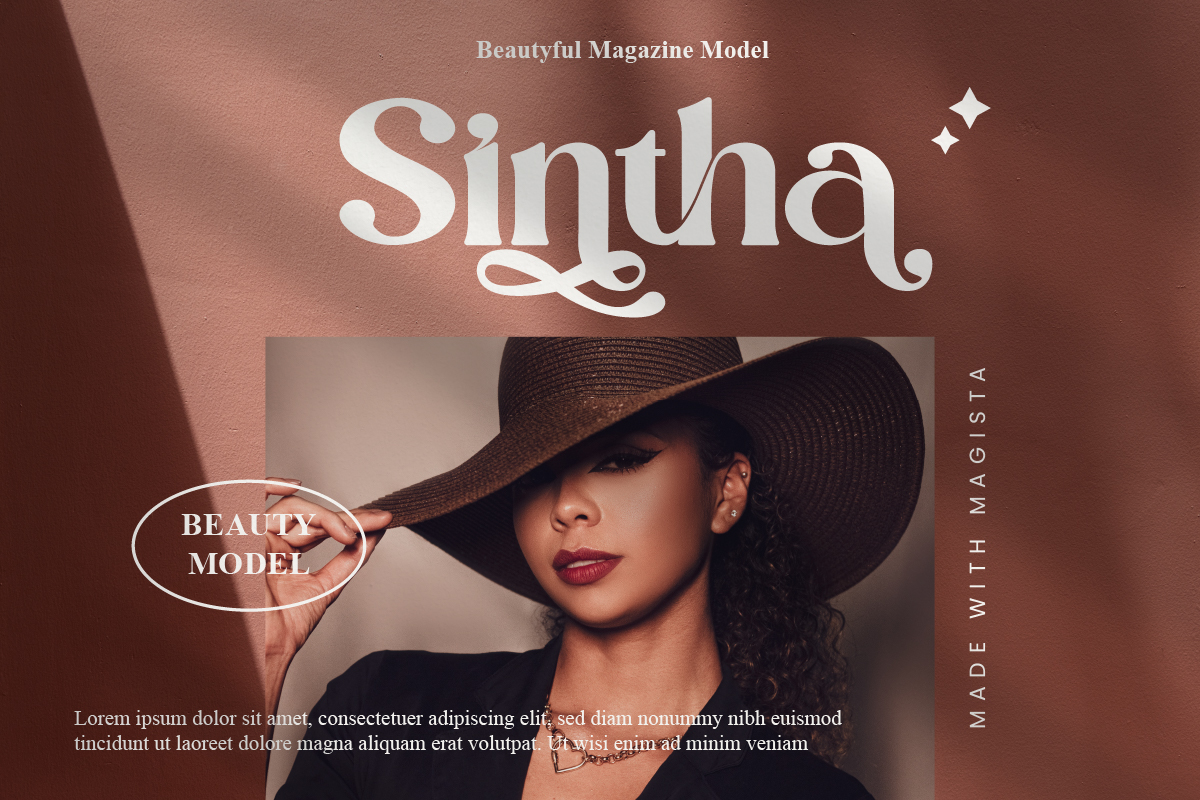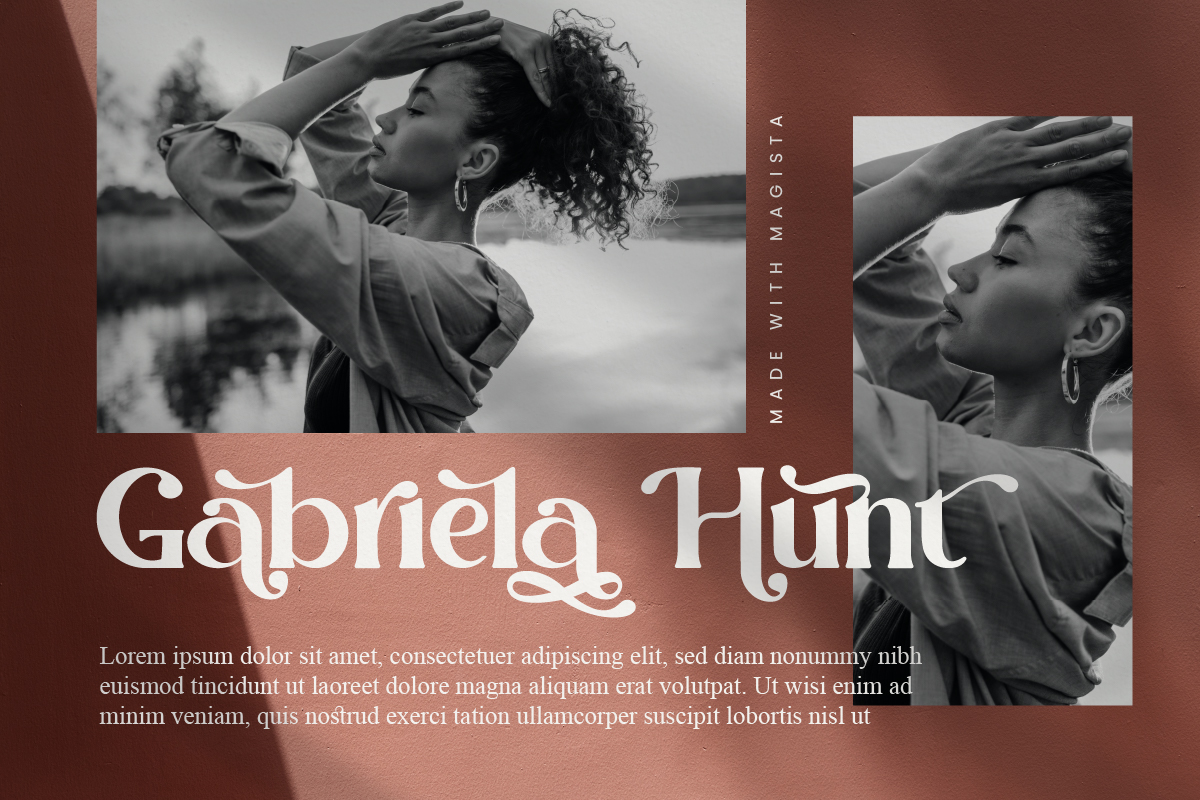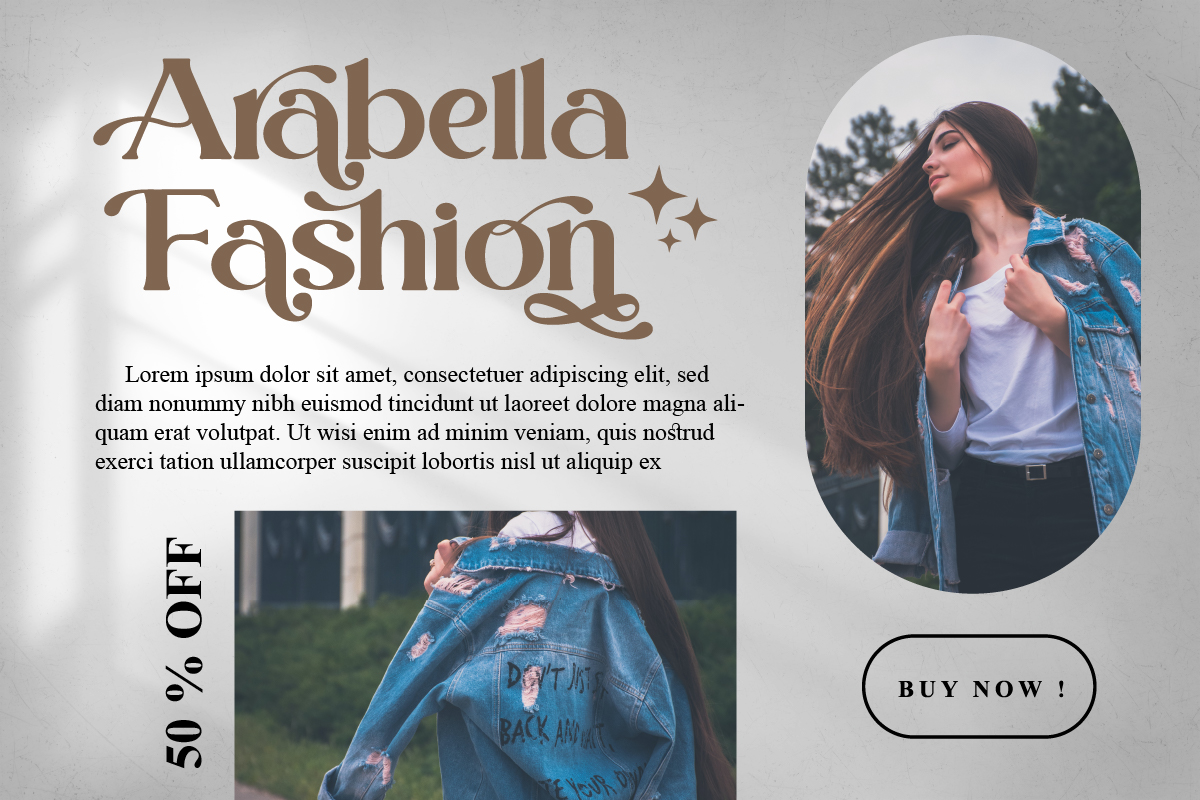
Magista Font
Magista Font is an elegant and chic serif font. Add it confidently to your projects, and you will love the results. This font is PUA encoded which means you can access all of the glyphs and swashes with ease!